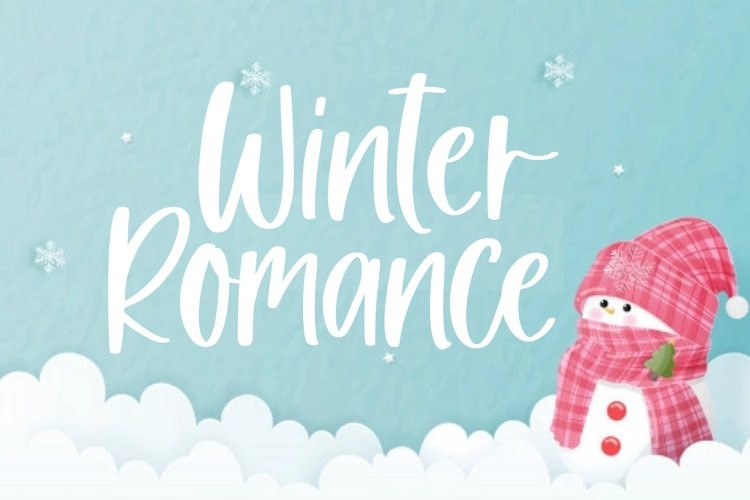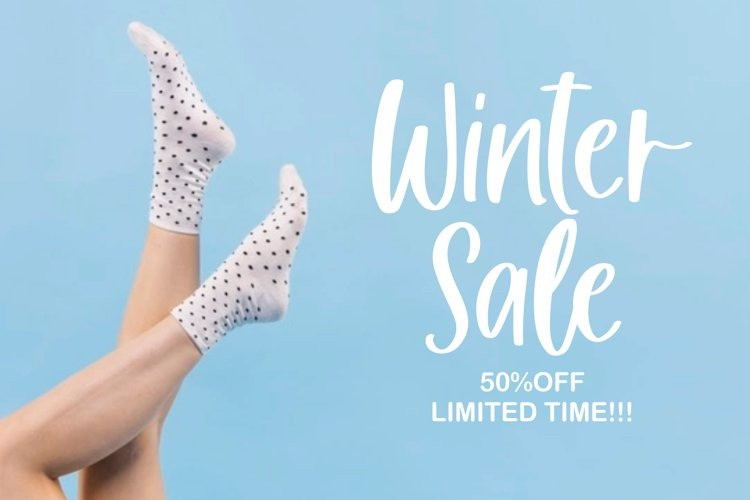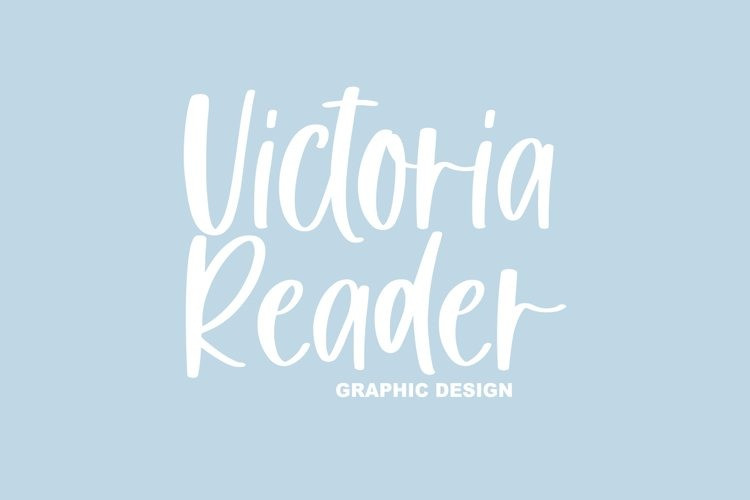
Winter Romance Script Font
Winter Romance– is a modern handwritten. This font is made in a modern style with elegantly,very casual and suitable for your various design needs I’tsPerfect for logo,branding, tittle, social media posts, advertisements, product packaging, product designs, label, photography, watermark, special event,magazine,web design,etc.What’s